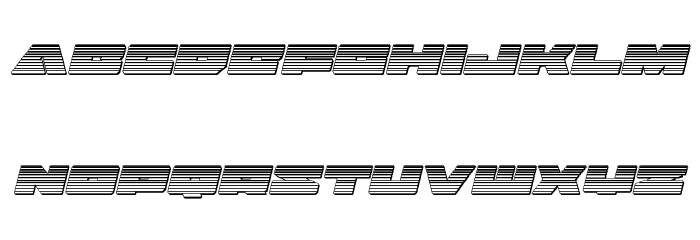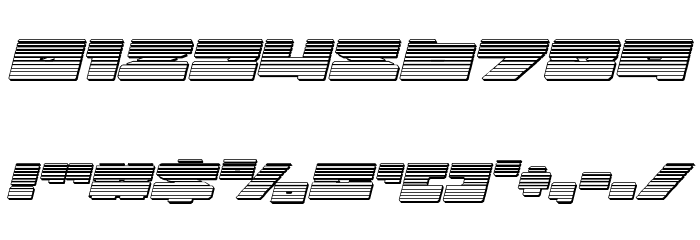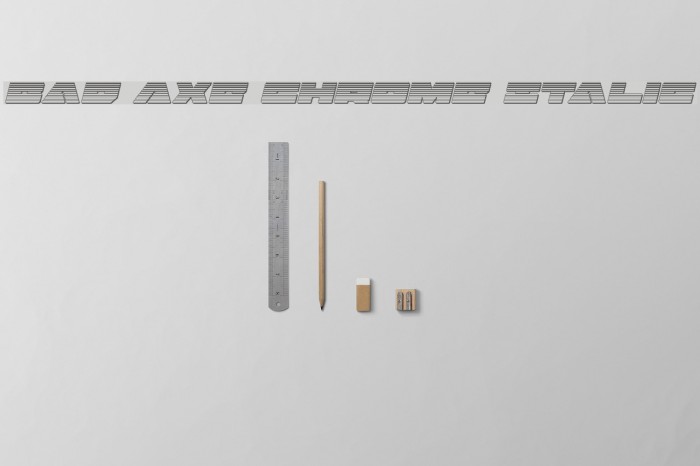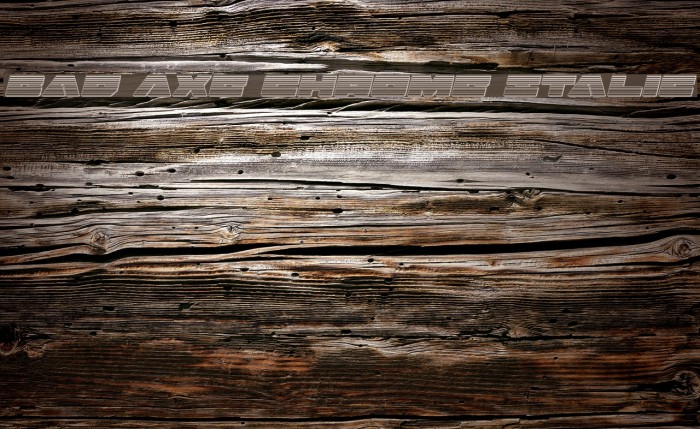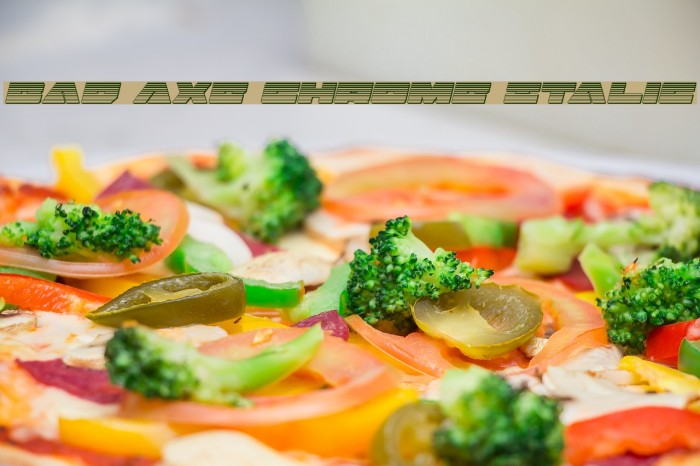
Bad Axe Chrome Italic Font
This font features a bold, futuristic design with a distinct chrome-like appearance. Each character is composed of multiple parallel lines, creating a layered effect that adds depth and dimension. The italic slant gives it a dynamic and forward-moving feel, making it ideal for projects that require a sense of speed or modernity. The uppercase and lowercase letters maintain a consistent style, while the numbers and special characters are designed to match the overall aesthetic. This font is perfect for creating eye-catching headlines, logos, and branding materials that need a strong visual impact.
A bold, futuristic italic font with a chrome-like, layered design.
- Proposed Projects: Ideal for futuristic branding, tech-related logos, dynamic posters, and modern advertising campaigns.